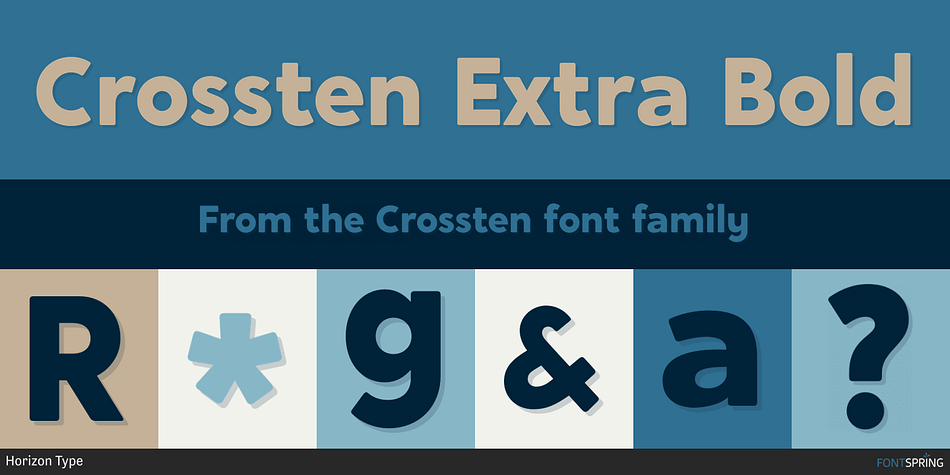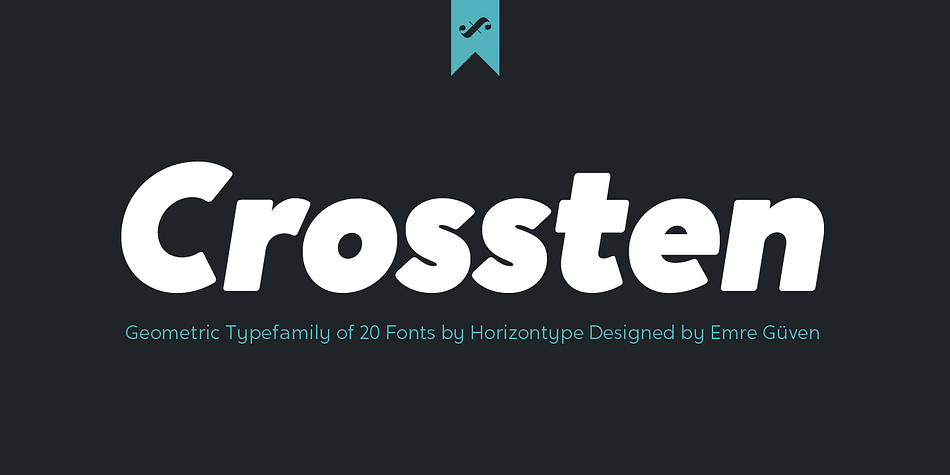
Crossten Extra Bold
Designed by Emre Güven, Crossten is a sans serif font family. This typeface has twenty styles and was published by Horizon Type.
Crossten is a rounded sans serif type family based on geometric forms. It comes in 20 styles, 10 uprights and matching italics.
Each weight includes extended language support. Crossten is incredibly useful for nearly any creative design.